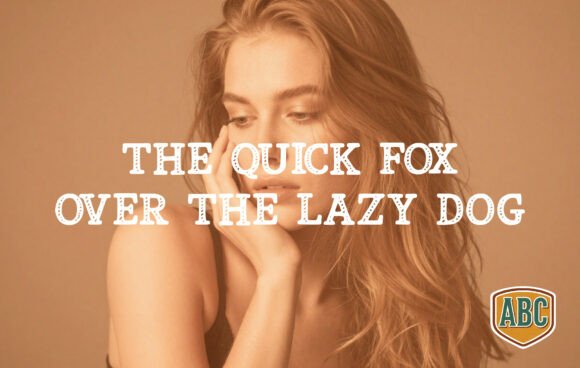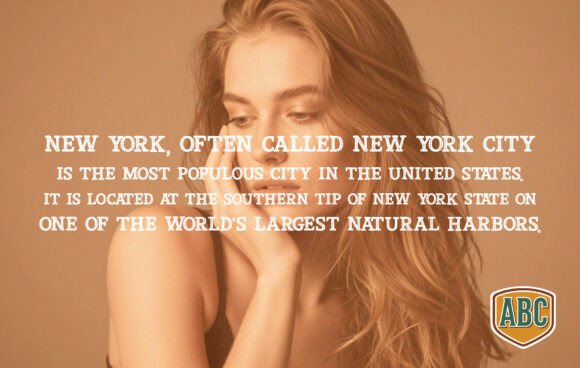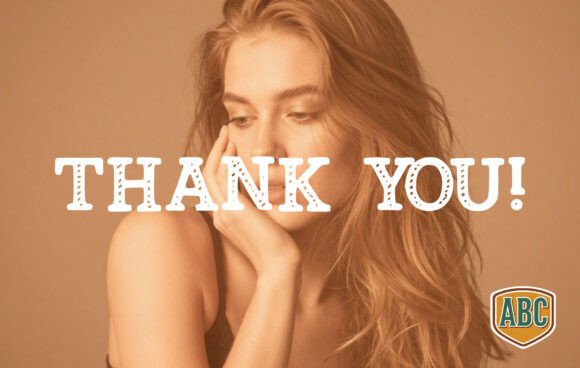
Introduction to Papayawhip Font
Have you ever stumbled upon a design element that instantly sparks your creativity and makes you feel like anything is possible? For designers and artists, this moment of inspiration can be a game-changer. For me, it happened when I discovered the Papayawhip Font – a whimsical display font that radiates joy and handcrafted charm.
With its unique dotted inline pattern and bold, rounded letterforms, the Papayawhip Font is a design resource that truly stands out. Its high-quality, textured appearance feels both celebratory and approachable, making it the ultimate choice for creative projects that need a “pop” of personality.
Whether you’re working on a new branding project or designing party decorations, the Papayawhip Font is a versatile tool that can elevate your work to the next level. And the best part? It’s available for free download with a transparent background, making it easy to integrate into your designs.
Key Features of Papayawhip Font
- Unique Whimsical Design: The Papayawhip Font offers a distinctive, playful aesthetic perfect for creative projects and design resources.
- Perfect for Creative Projects: The Papayawhip Font’s unique design and high-quality files make it an ideal choice for creative projects, such as branding, marketing materials, and digital art.
Honest Review: Papayawhip Font
I recently came across the Papayawhip Font, and I was excited to give it a try in my latest creative project. As a designer, I’m always on the lookout for high-quality design resources that can elevate my work.
- ✨ Transparent background makes it easy to work with
- ✨ Versatile font that’s suitable for various design applications
- ⚠️ Limited customization options
- ⚠️ May not be suitable for very small font sizes
Overall, I’m impressed with the Papayawhip Font. It’s a solid addition to any designer’s toolkit, and its free download option makes it a great resource for those on a budget. I’d definitely recommend it to anyone looking for a high-quality font for their next creative project.
Papayawhip Font is ideal for a variety of creative projects, including wedding invitations, social media graphics, and business logos. Its unique design and transparent background make it a versatile design resource for designers of all levels.